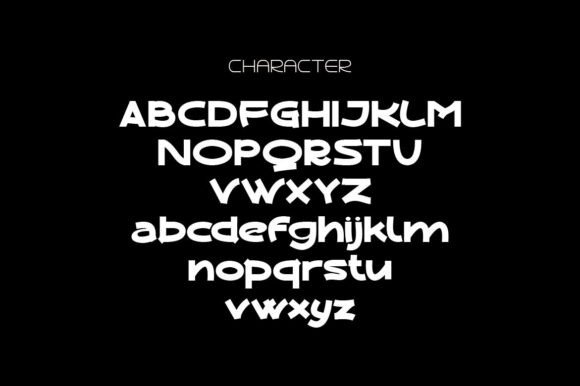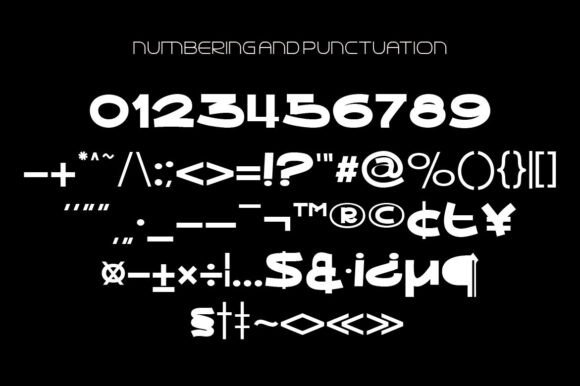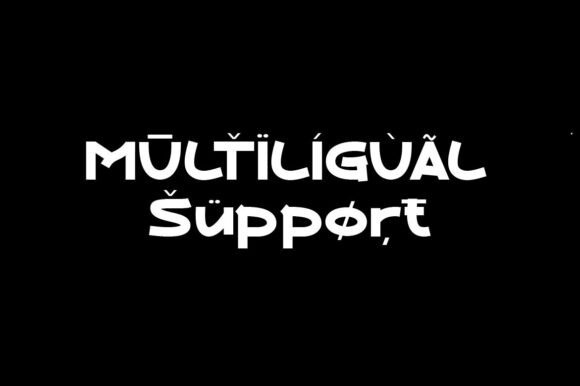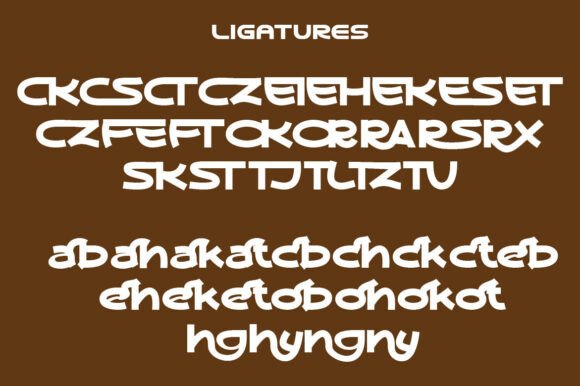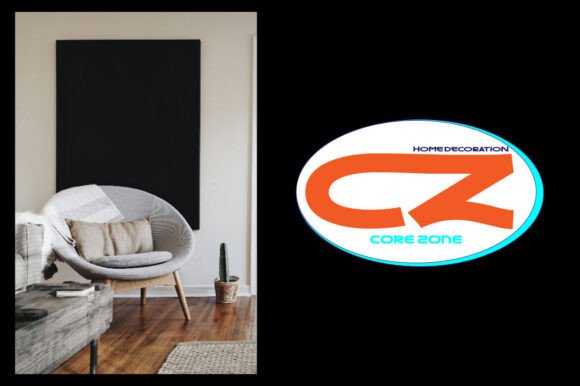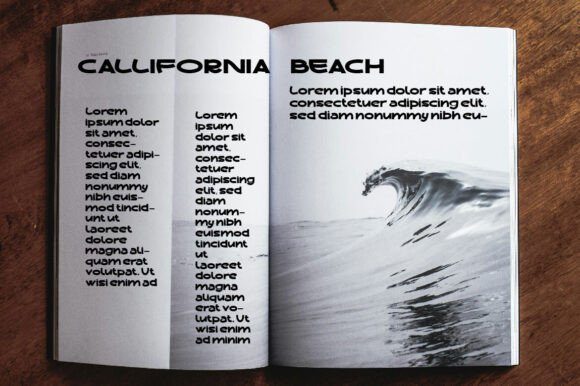
Introduction to Nando Font
Experience the allure of Nando font, a bold and distinctive sans serif that exudes a contemporary and modern essence.
Perfectly suited for injecting a touch of luxury and refinement, Nandoโ€™s unique style becomes an integral part of any creative journey from designing logos to fashion branding Magazine headlines pop with their sophisticated charm, and memorable quotes get an artistic lift.
Key Features of Nando Font